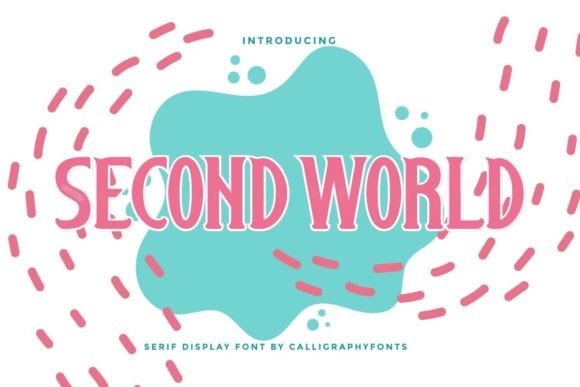
Are you ready to make a bold statement with your next design project? Introducing Second World, the ultimate western-style display font that will ignite your creativity and elevate your designs to new heights. This font is crafted with meticulous attention to detail, capturing the essence of the Wild West with its unique and charming style.
With Second World, you can unleash your inner cowboy and create designs that evoke the spirit of adventure and freedom. Whether you're designing posters, flyers, branding materials, or invitations, this font will add a touch of rustic elegance that will leave a lasting impression.
Every letter in the Second World font family is a masterpiece, expertly designed to convey a sense of authenticity and nostalgia. The bold strokes and playful curves dance across the page, creating a visual feast that will captivate your audience.